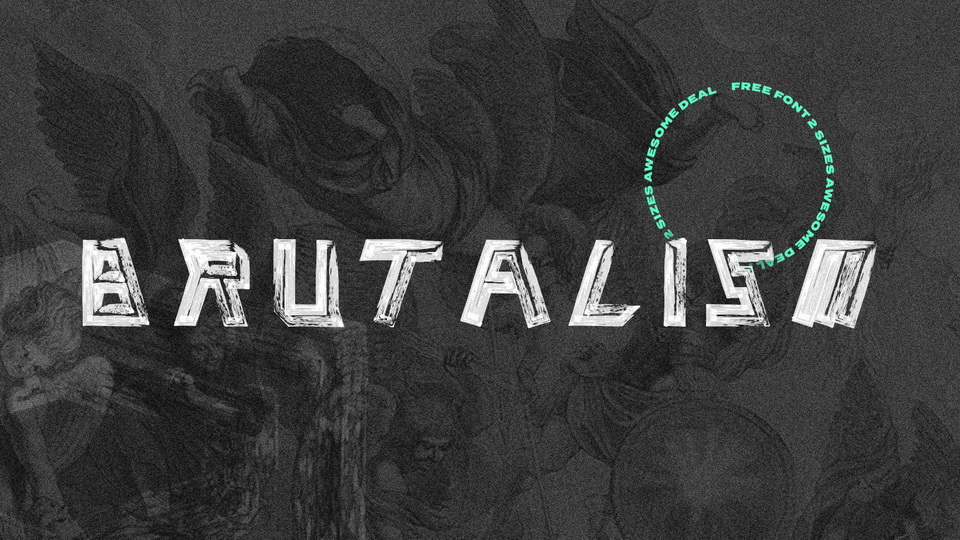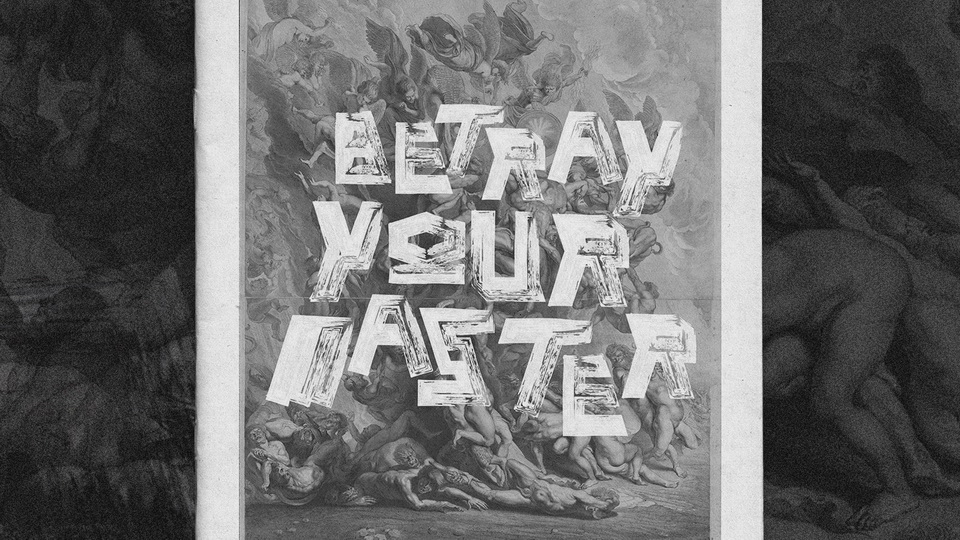
Brutalism is a bold display typeface inspired by brutalism in architecture. Rough-looking typeface is created using a brush as a contour.
With its strong robust look and sharp geometric shapes, Brutalism is ideal for posters, headlines and impressive artworks.